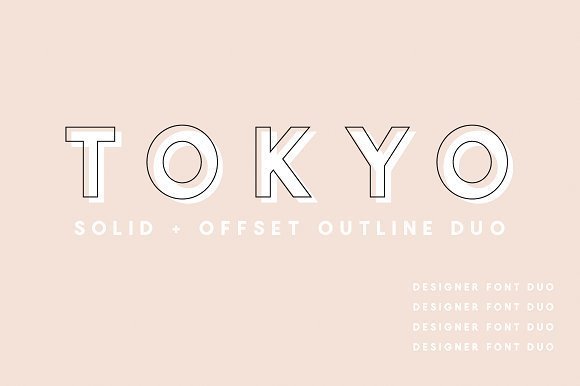
In this article, we present to you Tokyo Font, a bold sans serif typeface with a unique feature of dual solid and outlined weights.
Richard Austin is the American designer that took the charge of designing and all the rights of releasing this typeface have been kept by Stephensonblake & co.
The outline font automatically offsets, making it really simple to layer these fonts together perfectly with tahoma font. Simply duplicate your “Regular” layer and switch the setting to “Outline”, and the type will automatically offset up and to the right for you
This is a great typeface that works well for the display choice and also for printing purposes. You should use this typeface with cambria font to create a great design for headers, invitations, and much more.
View of Tokyo Font
This typeface can easily be used in:
- Animated logos
- Office branding
- Game interfaces
- Title sequences and end credits
- App design
- Postcards and flyers
- Wall murals
- Title sequences and end credits
- Theme design
- Magazines
| Style | Sans-Serif |
| Designer | Richard Austin |
What Type of Font Is Tokyo?
Tokyo is one of the best sans serif font that is designed and presented by Richard Austin. It’s one of the most liked fonts on the web.
What’s the Closest Font to Tokyo?
The Nordica Classic Light Font is very close to the Tokyo font.